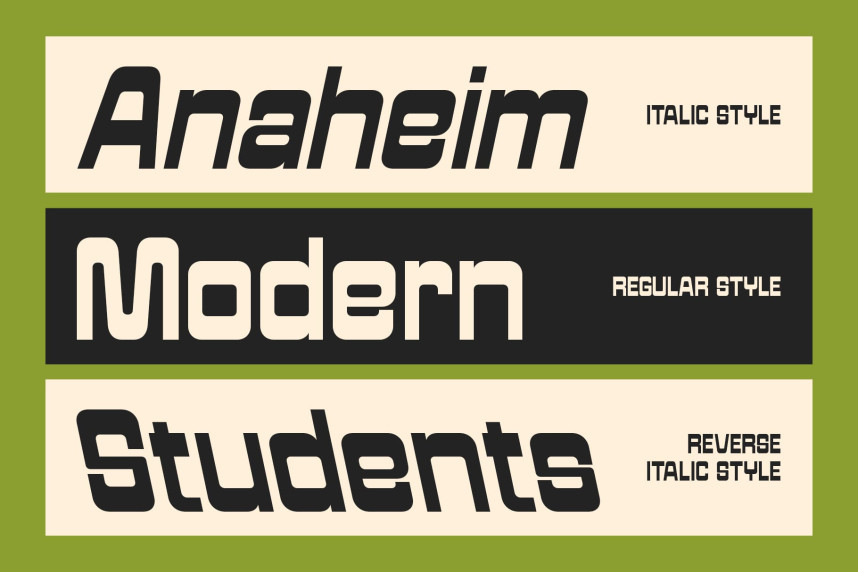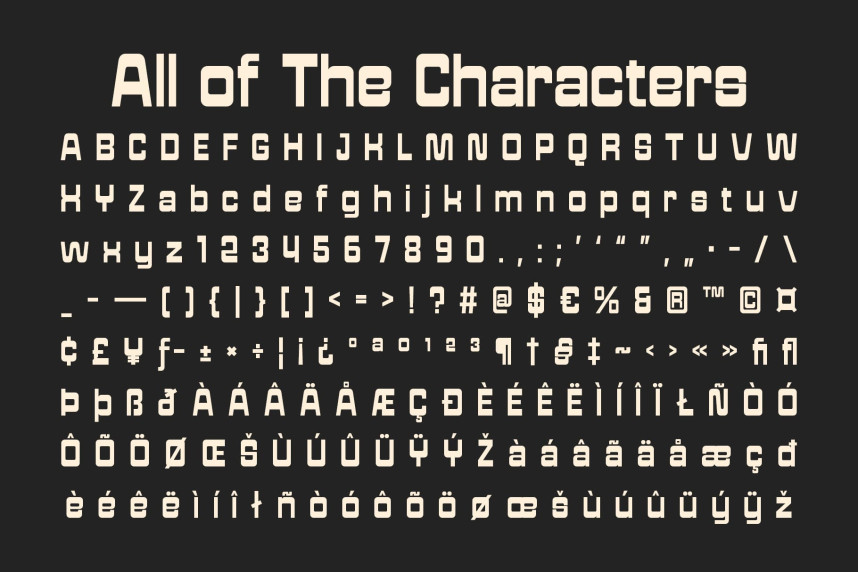
CS Strider Font
CS Strider Font – Reverse Contrast Font: Where Retro Meets Modern Expression Bold Reverse Contrast Design. This is a reverse contrast display font that fuses vintage charm with modern sensibility. By inverting the traditional weight balance, it creates bold visual tension and a striking rhythm that instantly captures attention. Each letterform reflects confidence and individuality, making it a perfect choice for projects that demand both impact and originality.